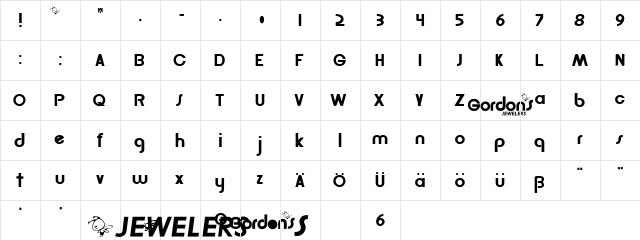
GordonsJewelers.fog takes a measured approach to typography — its balanced proportions and neutral character make it a reliable workhorse for both digital and print work.